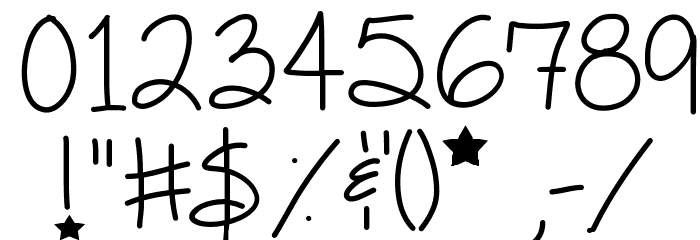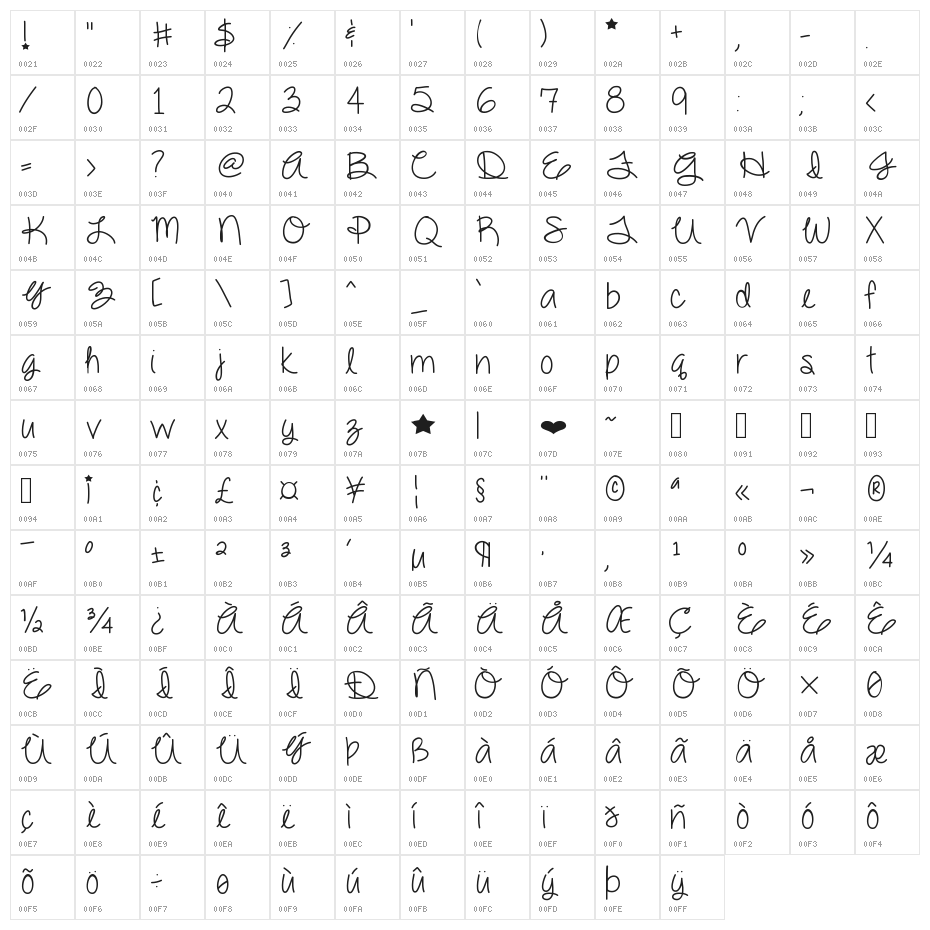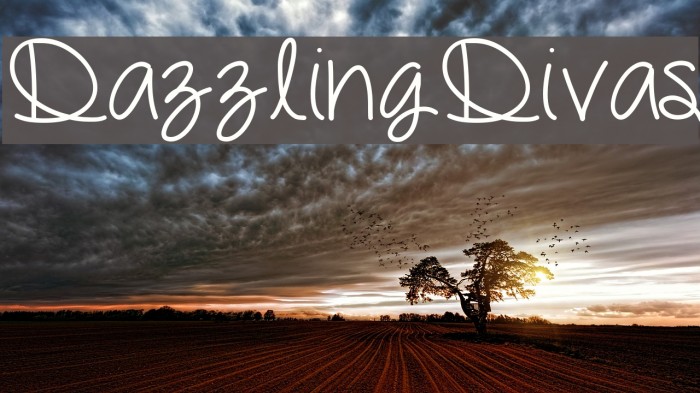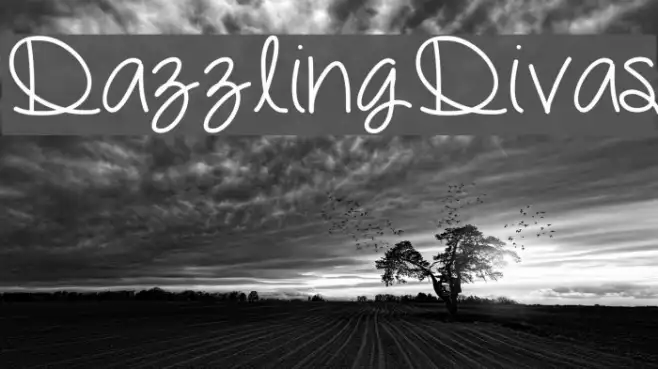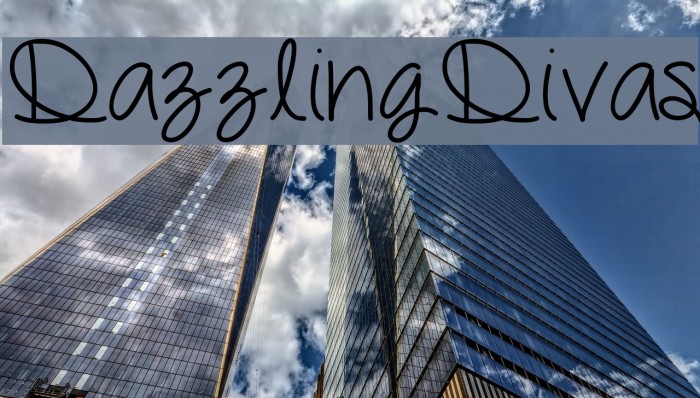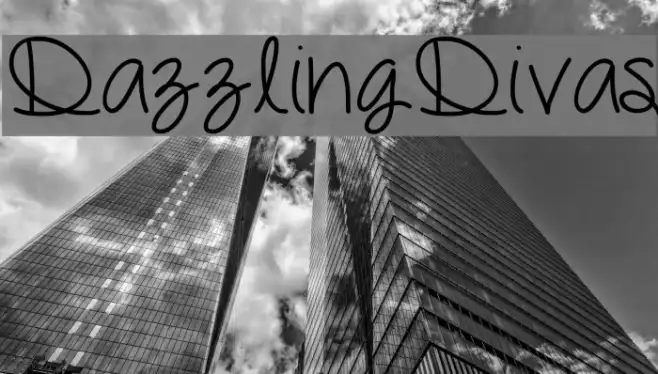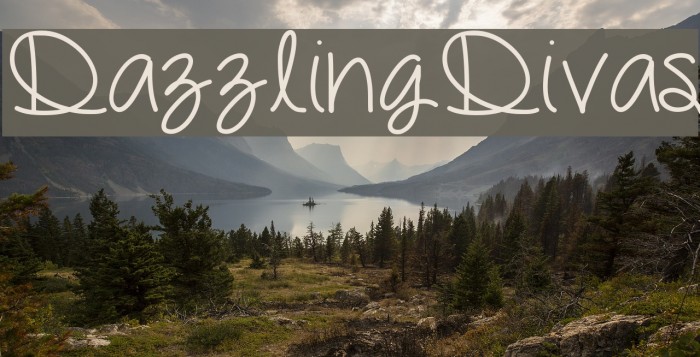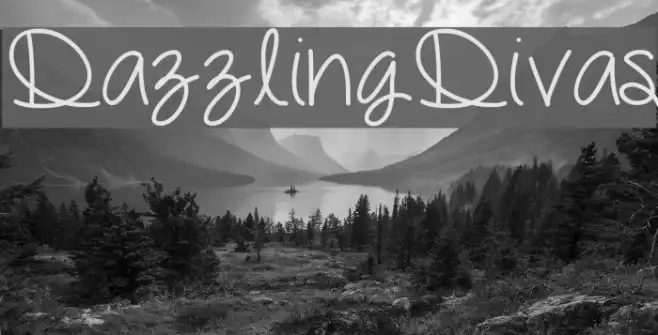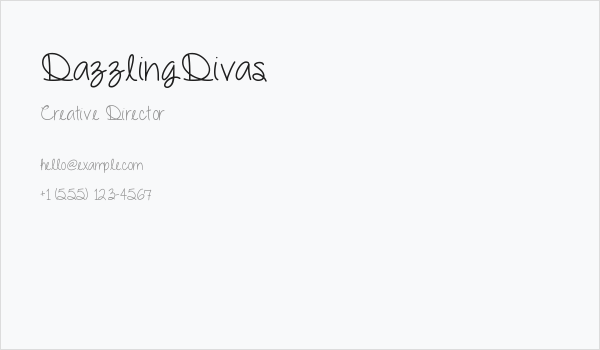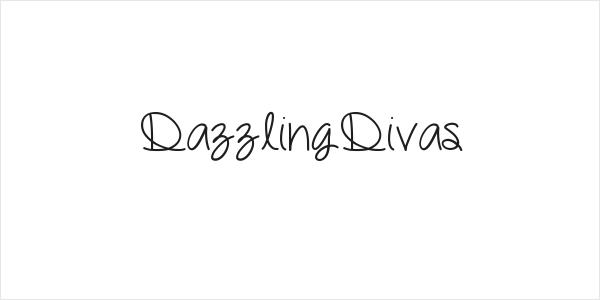
DazzlingDivas Font
DazzlingDivas Description
This font features a playful and whimsical style, characterized by its flowing, cursive-like uppercase letters and more straightforward lowercase letters. The uppercase letters have a unique, almost calligraphic flair with loops and curves that add a sense of movement and creativity. The lowercase letters are more rounded and simple, providing a nice contrast to the elaborate uppercase. The numerals are consistent with the lowercase style, maintaining readability while still fitting the overall playful theme. Special characters are designed with the same whimsical touch, making them stand out. This font is perfect for projects that require a fun and lively aesthetic.
| Proposed Projects | Ideal for children's books, playful branding, greeting cards, and creative invitations. |